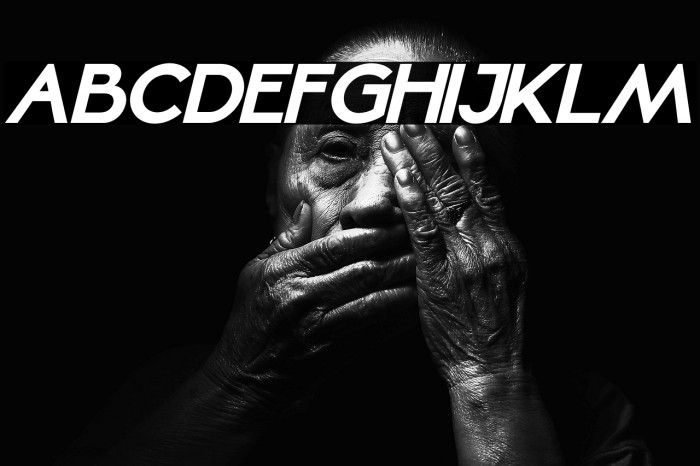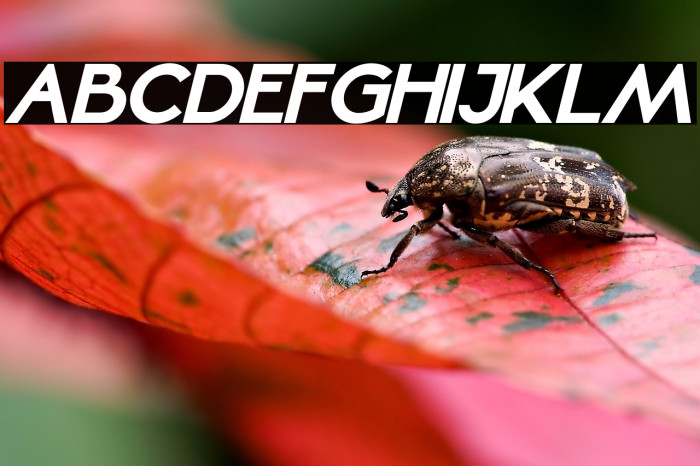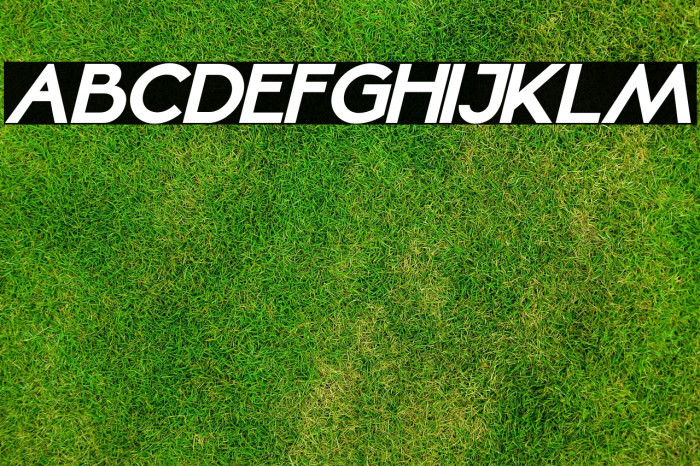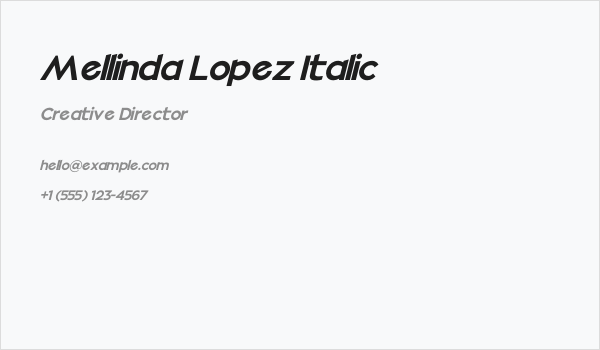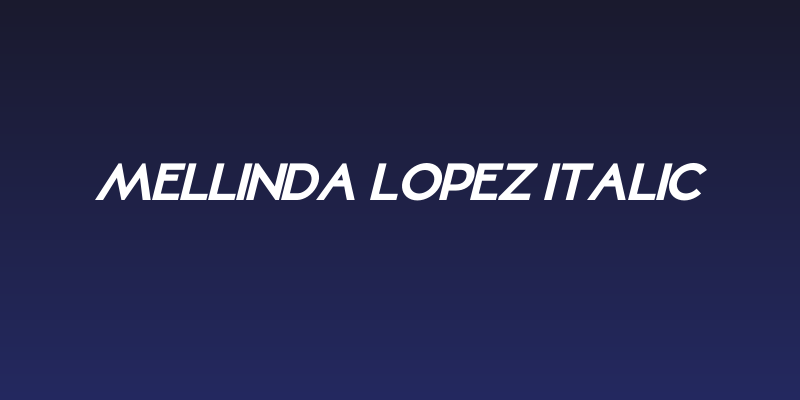
Mellinda Lopez Italic Font
Mellinda Lopez Italic Description
This font features a sleek, italicized style with a modern and dynamic appearance. The characters are slightly slanted, giving a sense of motion and fluidity. The strokes are consistent and smooth, with a medium contrast between thick and thin lines. The overall design is clean and professional, making it suitable for a variety of applications. The numerals and special characters maintain the same italicized style, ensuring uniformity across all text elements.
| Proposed Projects | Ideal for branding projects, modern web design, advertising, and editorial layouts where a dynamic and professional look is desired. |